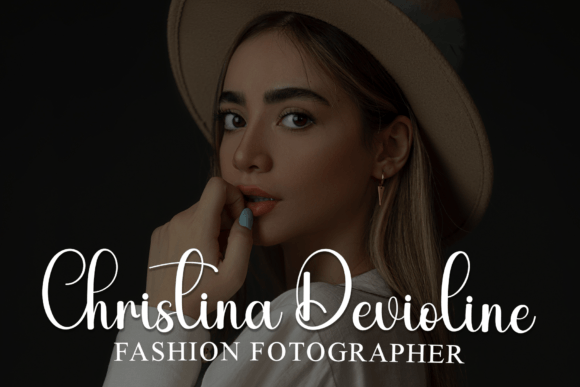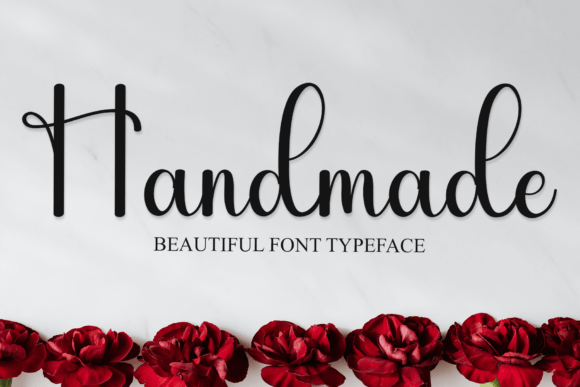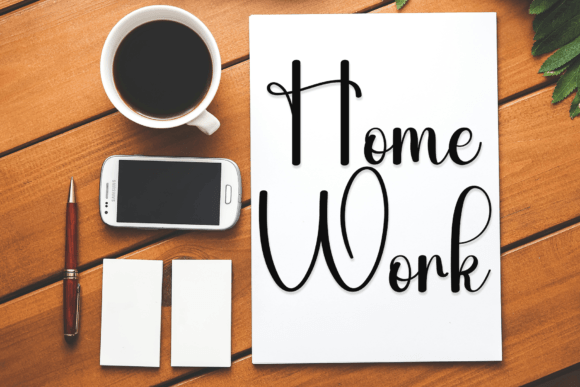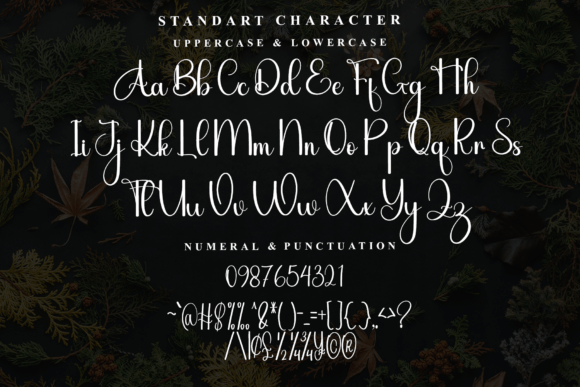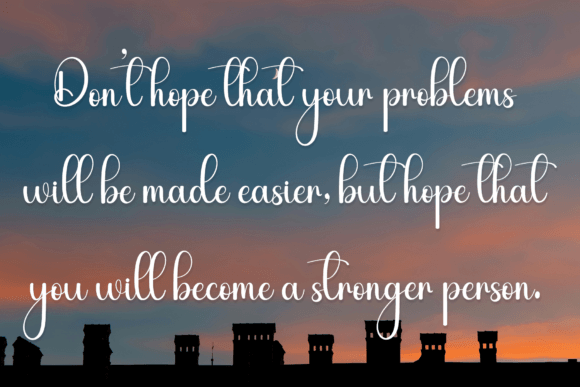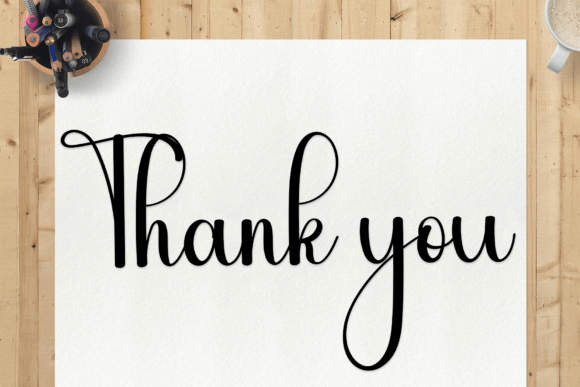
Dancing Vintage Font: Elevate Your Designs with Elegance and Timelessness
Are you a designer or crafter looking for a font that exudes elegance, delicacy, and timelessness? Look no further than the Dancing Vintage Font. This beautiful font is designed to add a touch of sophistication and refinement to any design project, making it perfect for a wide range of creative endeavors.
A Delicate and Elegant Font
The Dancing Vintage Font is a delicate and elegant font that features beautiful and well-balanced characters. Its timeless design ensures that it will never go out of style, making it a versatile choice for any design project. Whether you’re working on a logo, branding materials, invitations, or any other design project, this font is sure to impress.
Matching a Wide Pool of Designs
One of the standout features of the Dancing Vintage Font is its ability to match a wide pool of designs. Its classic and elegant design makes it perfect for pairing with a variety of design styles, from vintage and rustic to modern and minimalist. Whether you’re looking to create a cohesive look or add a touch of contrast to your design, this font is sure to deliver.
Bring Your Ideas to Life
The Dancing Vintage Font is designed to bring your most creative ideas to life. With its beautiful and elegant design, it’s the perfect choice for adding a touch of sophistication and refinement to any design project. Whether you’re working on a DIY craft project or a professional design project, this font is sure to make your ideas shine.
The Dancing Vintage Font is perfect for designers and crafters who are looking for a font that exudes elegance and sophistication. Whether you’re working on a professional design project or a DIY craft project, this font is sure to deliver. Its timeless design and beautiful characters make it perfect for a wide range of creative endeavors, from logo design and branding to crafting and scrapbooking.
Tips for Using the Dancing Vintage Font
- Delicate and elegant design
- Timeless and sophisticated
- Beautiful and well-balanced characters
- Perfect for a wide range of design projects